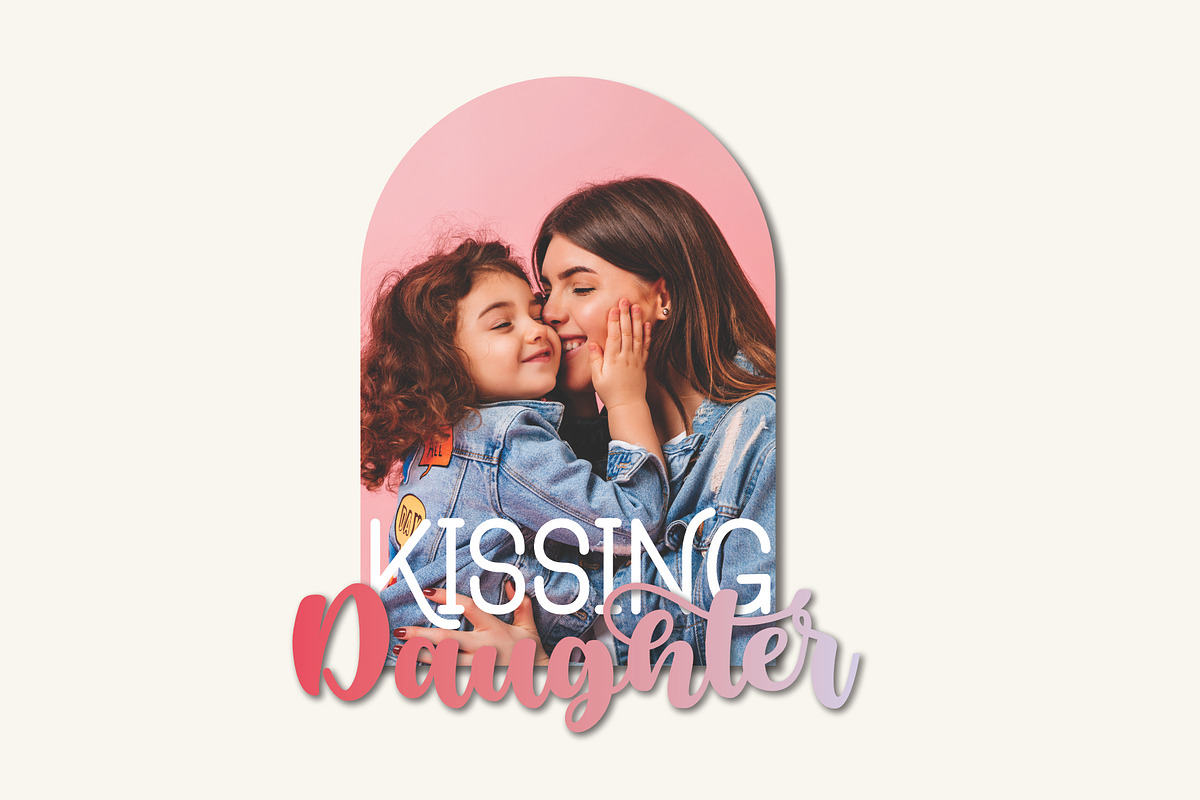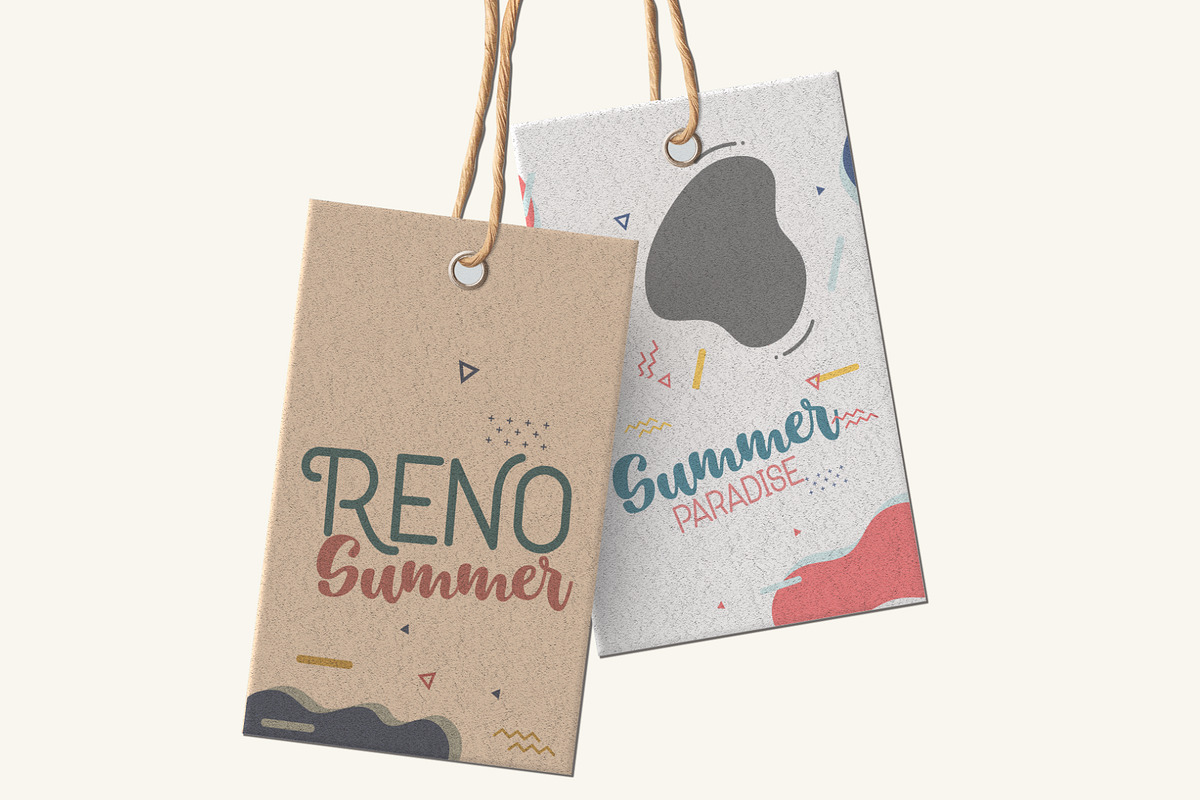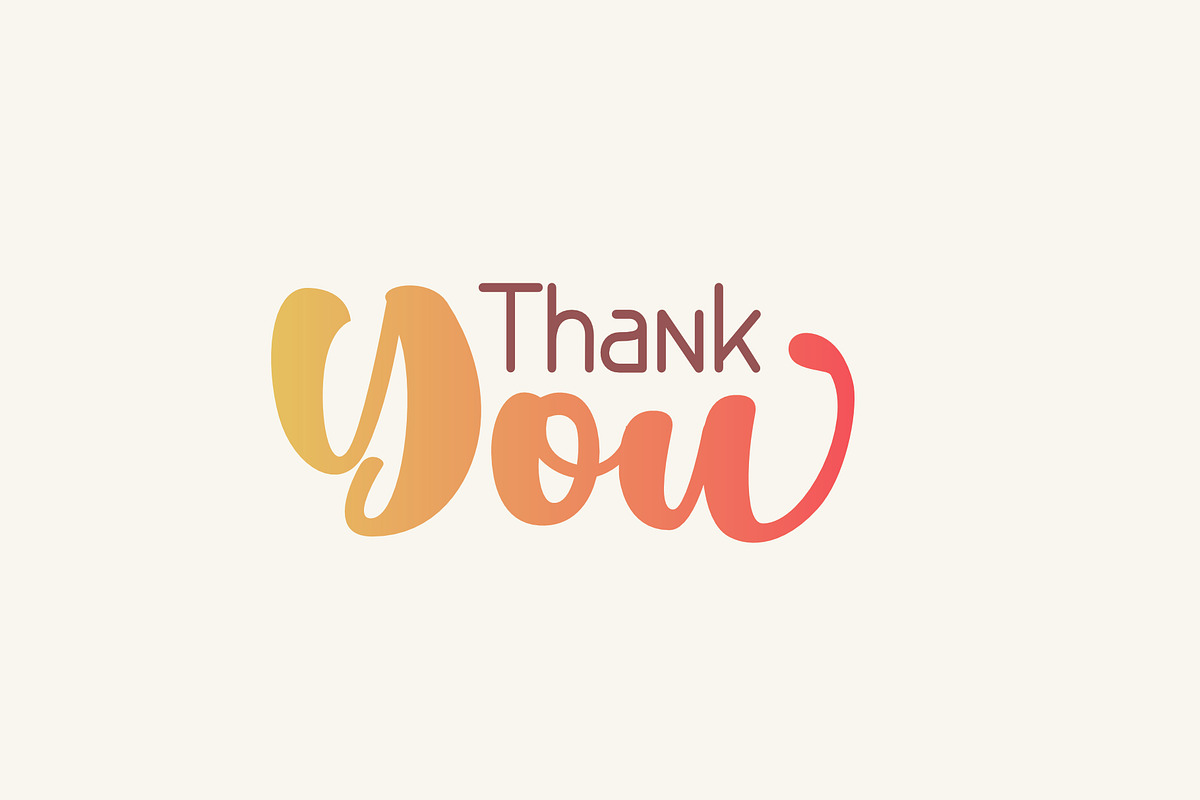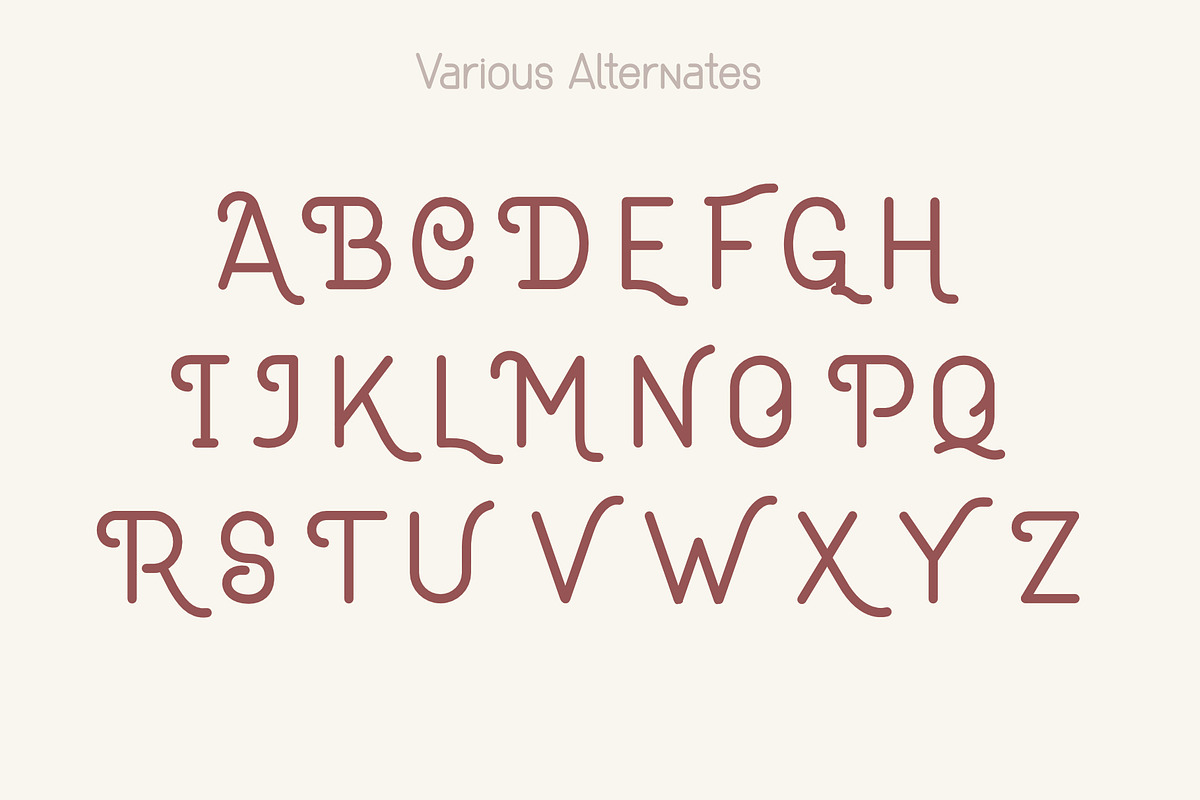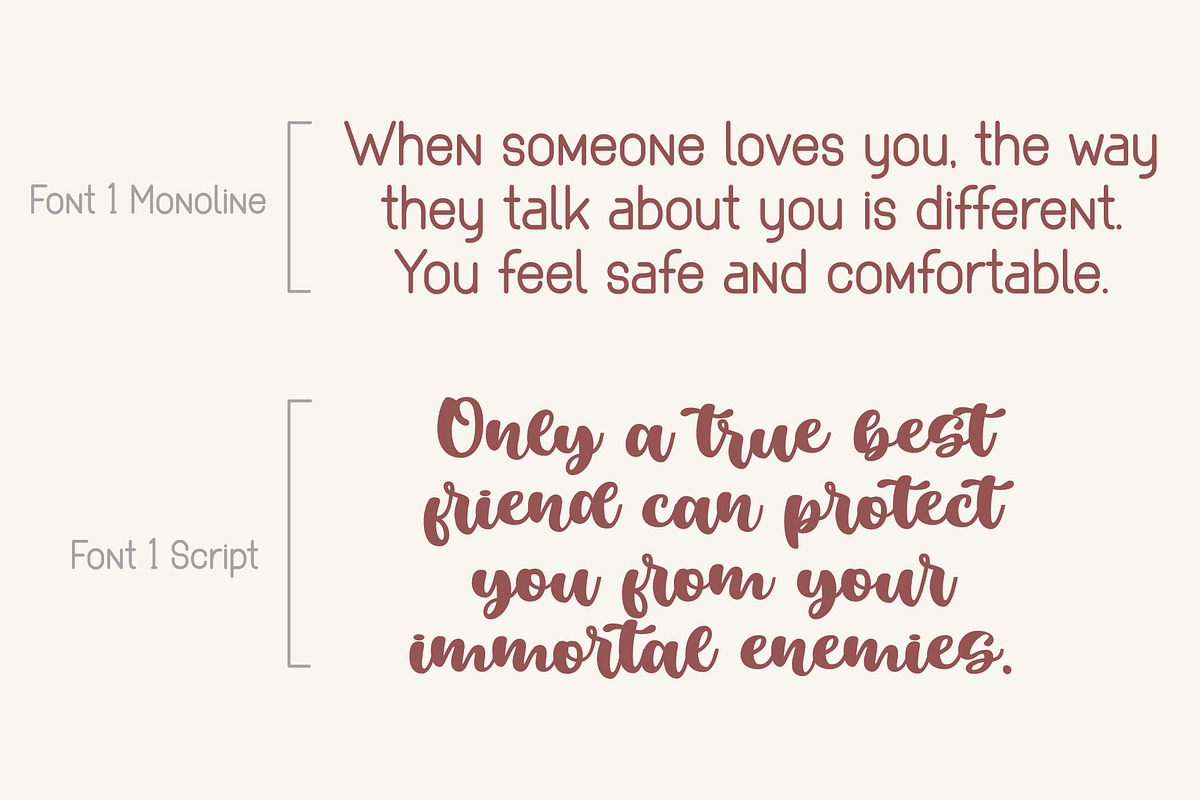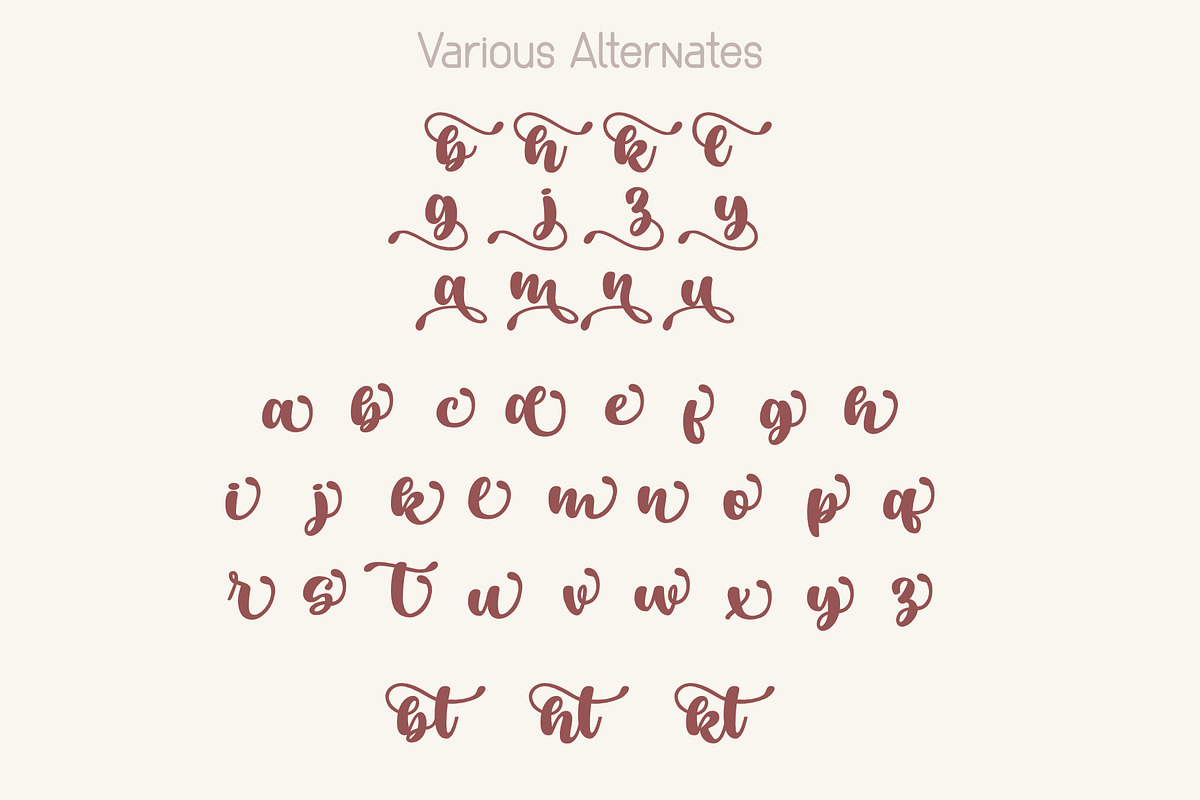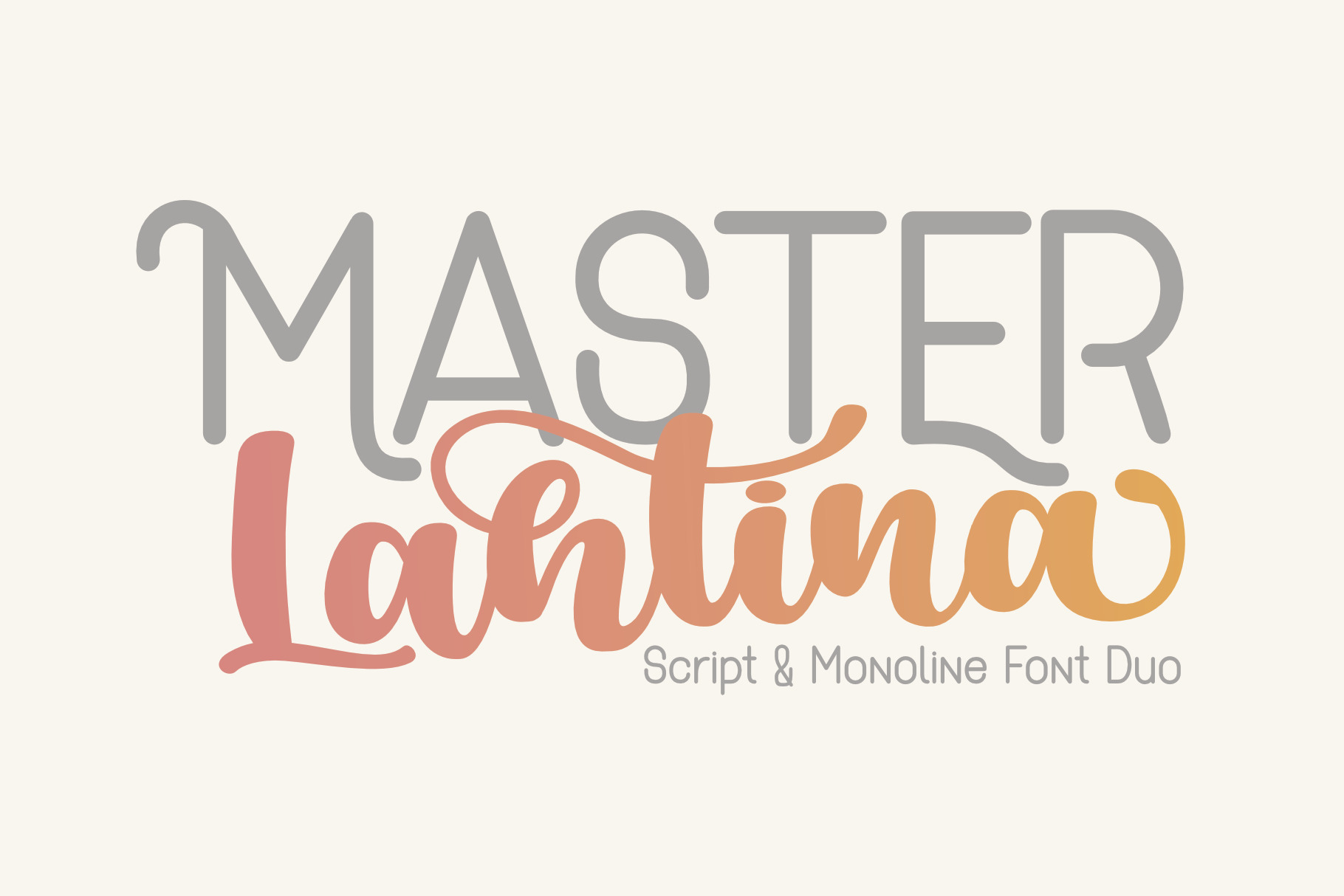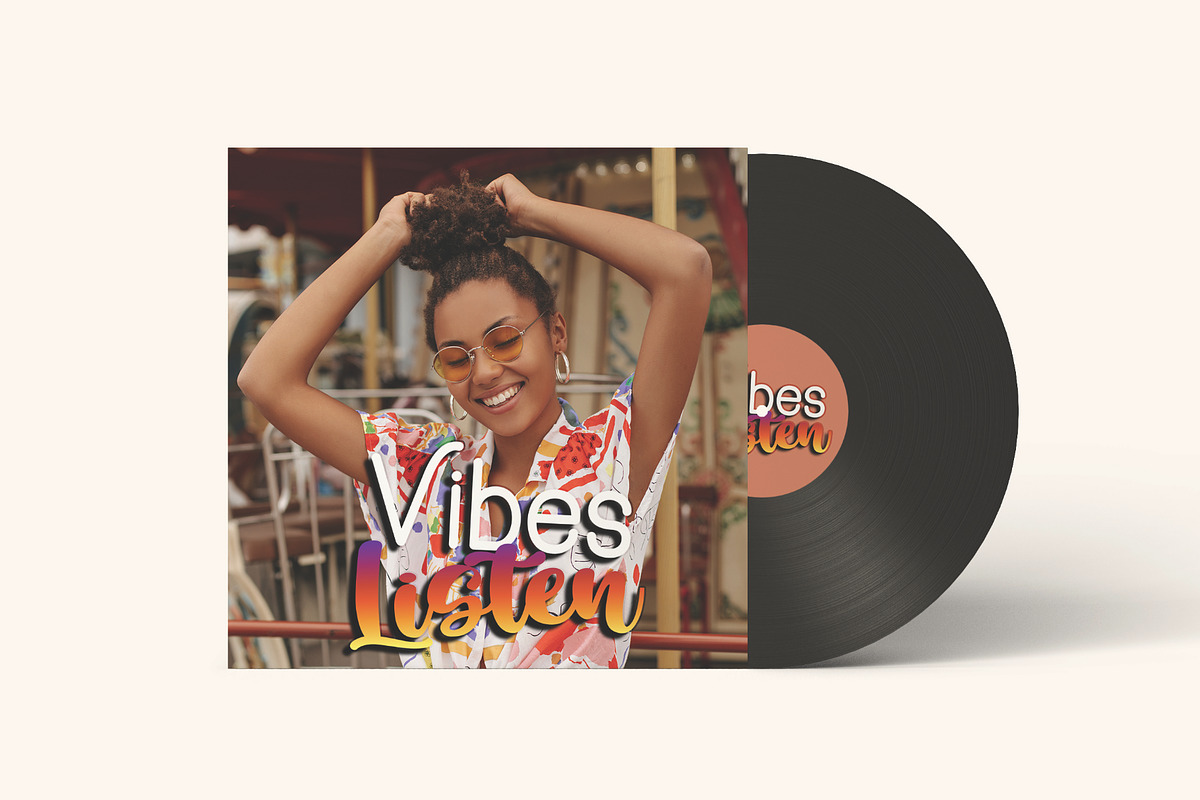
Master Lahtina - Font Duo
It is perfect for branding,logo, every other design which needs a Display.
Character set A-Z
Character set a-z
Support multilanguage glyphs